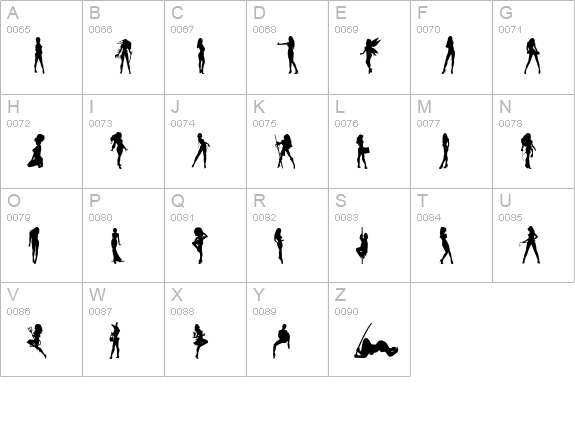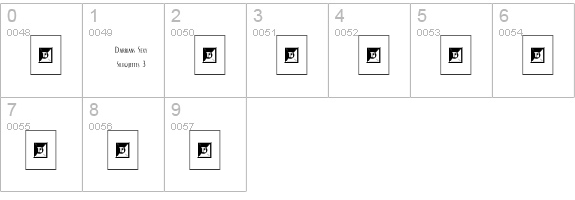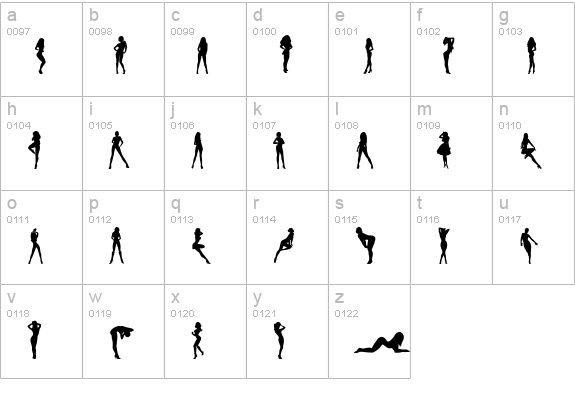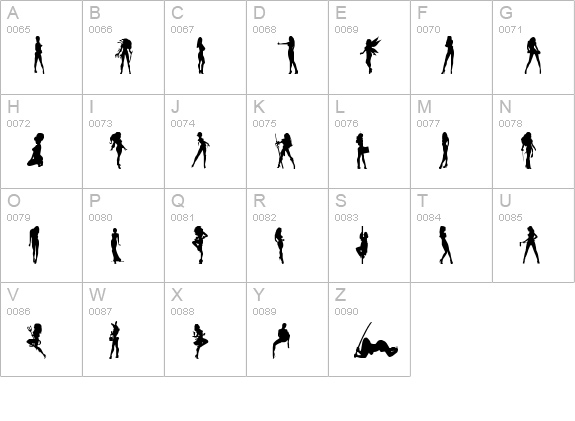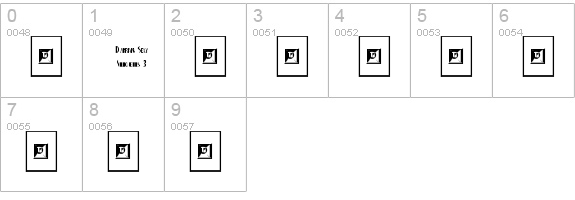
Darrians Sexy Silhouettes 3 Font Details
Darrians Sexy Silhouettes 3 is a captivating and alluring font that exudes elegance and sophistication. With its intricate silhouettes and stylish design, this font is perfect for adding a touch of sensuality to your projects. Whether you're creating invitations, posters, or branding materials, Darrians Sexy Silhouettes 3 is sure to make a statement. What's even better is that Darrians Sexy Silhouettes 3 is available for free download at FontsMarket.com. This means you can easily access this stunning font and incorporate it into your designs without any cost. Don't miss out on the opportunity to elevate your projects with the irresistible charm of Darrians Sexy Silhouettes 3. Download it now and let your creativity shine!